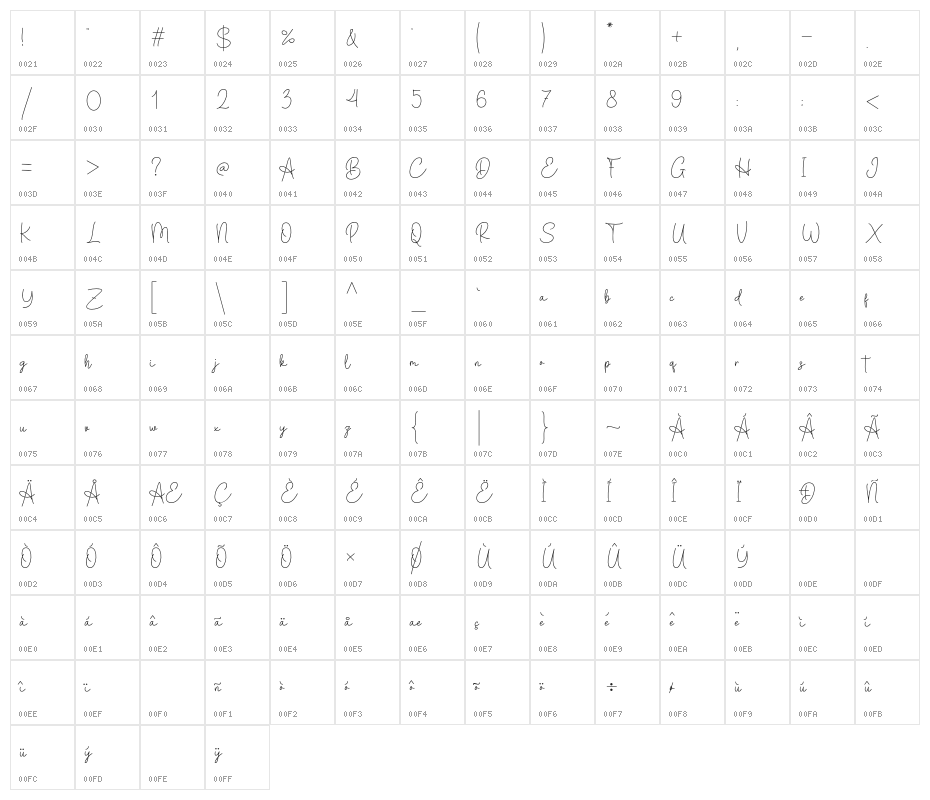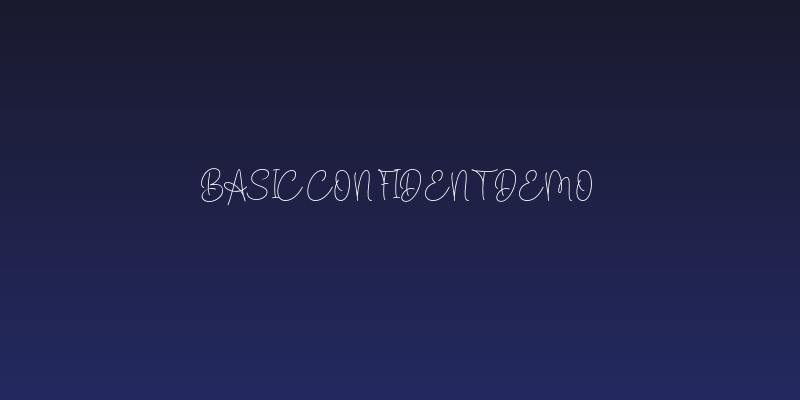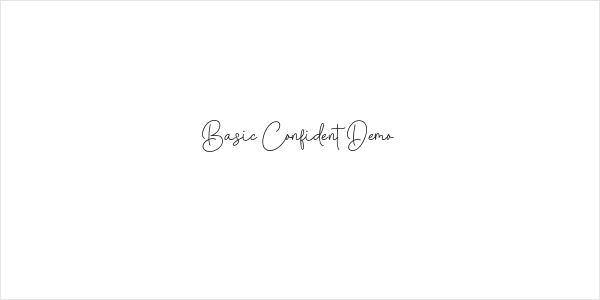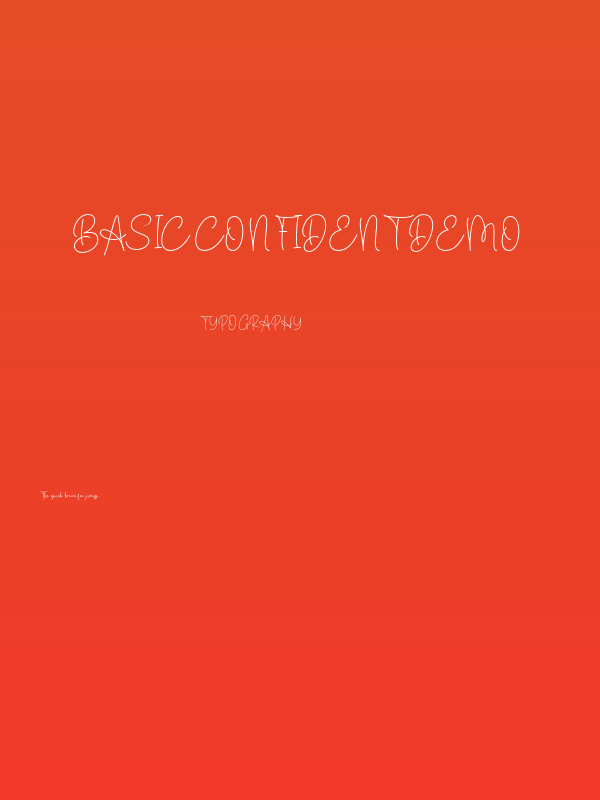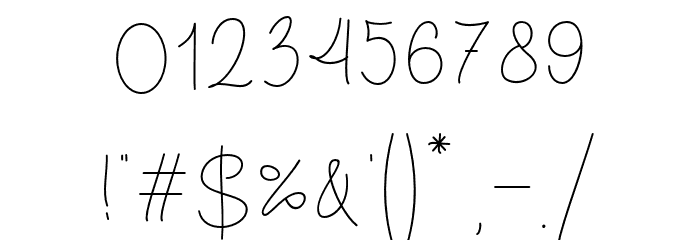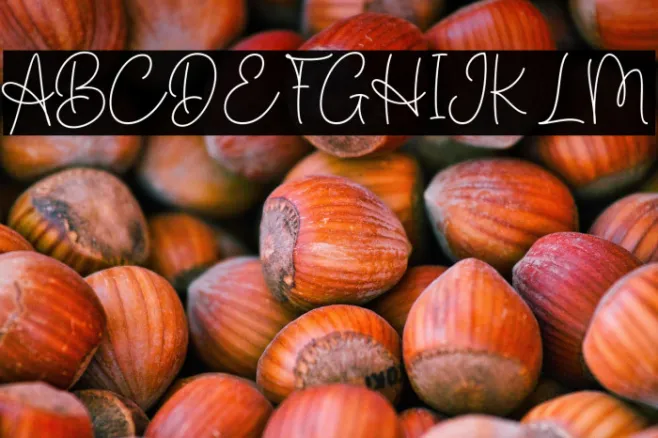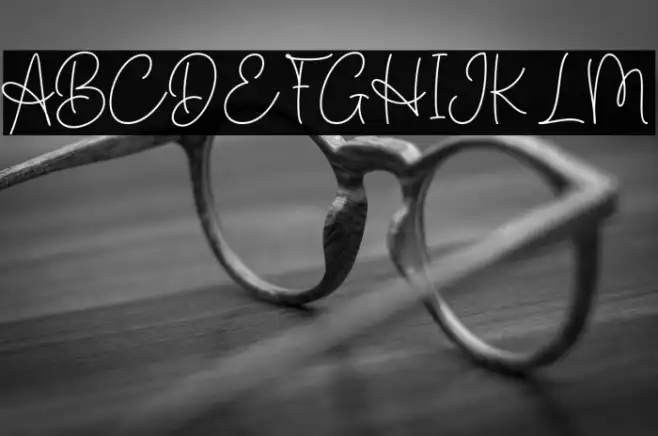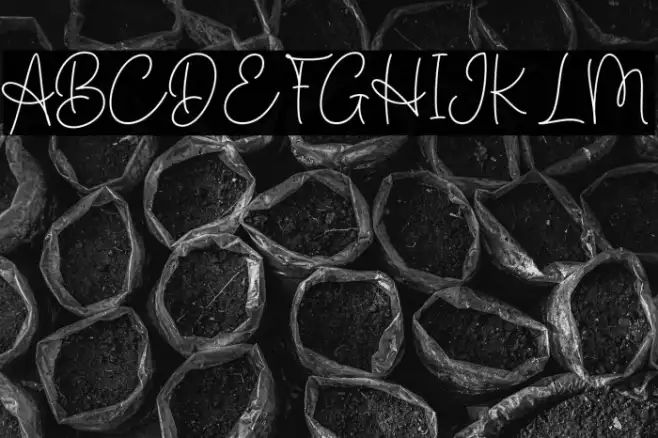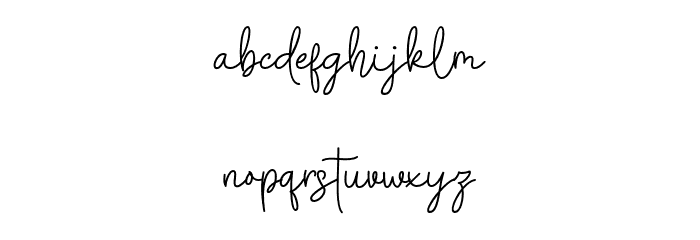
Basic Confident Demo Font
Basic Confident Demo Description
This font exhibits a playful and elegant handwritten style, characterized by its fluid and continuous strokes. The uppercase letters are tall and slightly narrow, with a whimsical flair that adds a touch of sophistication. The lowercase letters maintain a consistent flow, enhancing readability while retaining a casual charm. Numbers are crafted with a similar aesthetic, ensuring uniformity across all characters. Special characters are thoughtfully designed to complement the overall style, making this font versatile for various applications. Its delicate lines and artistic curves make it suitable for creative projects that require a personal touch.
| Proposed Projects | Ideal for wedding invitations, greeting cards, personal branding, and creative projects requiring a personal touch. |